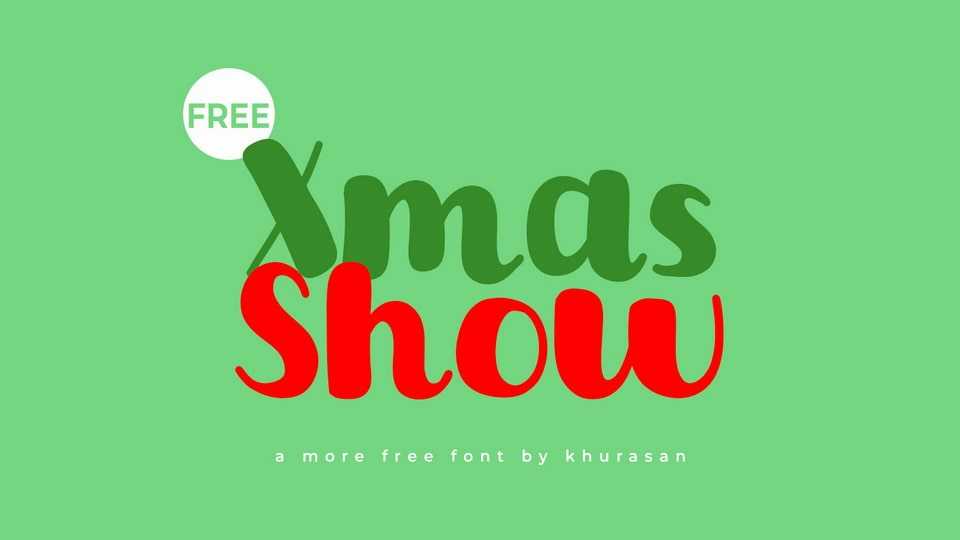
Download Xmas Show font, the most delightfully whimsical and playful Christmas font you’ll ever encounter! This handcrafted typeface is a festive fusion of merriment and charm, designed to bring joy to your holiday projects.